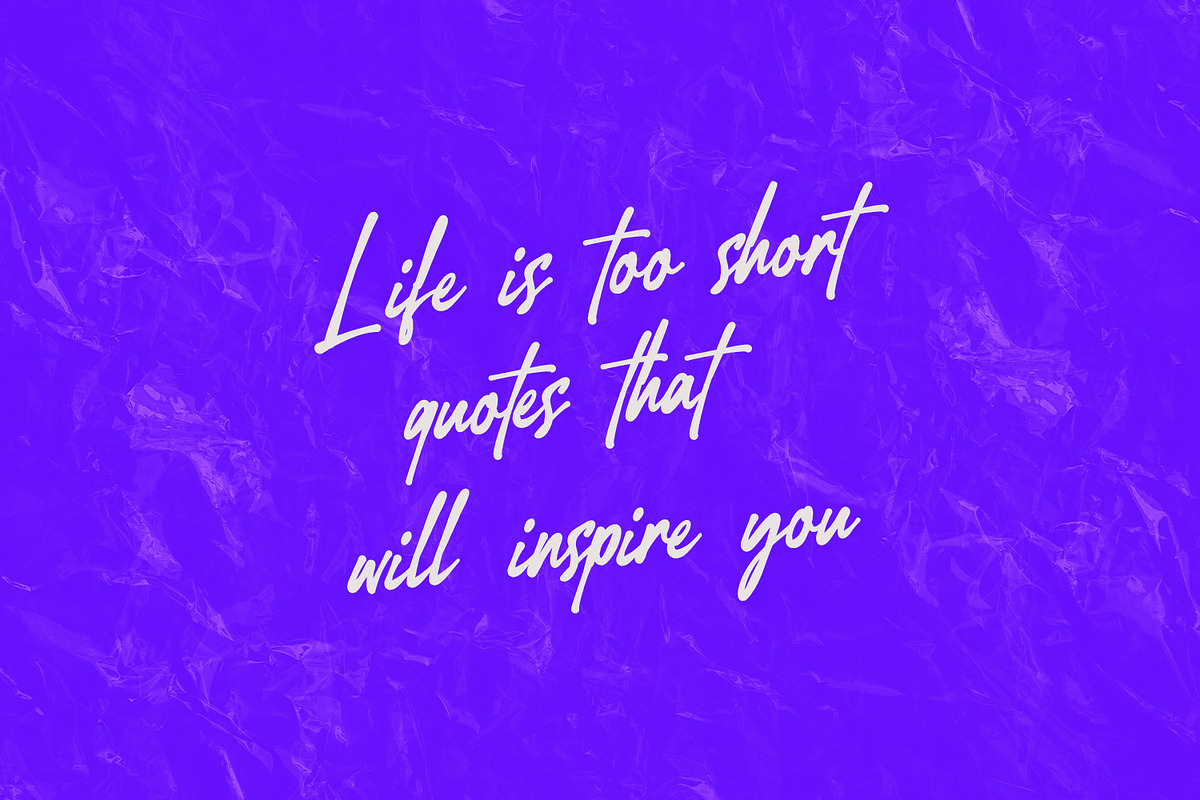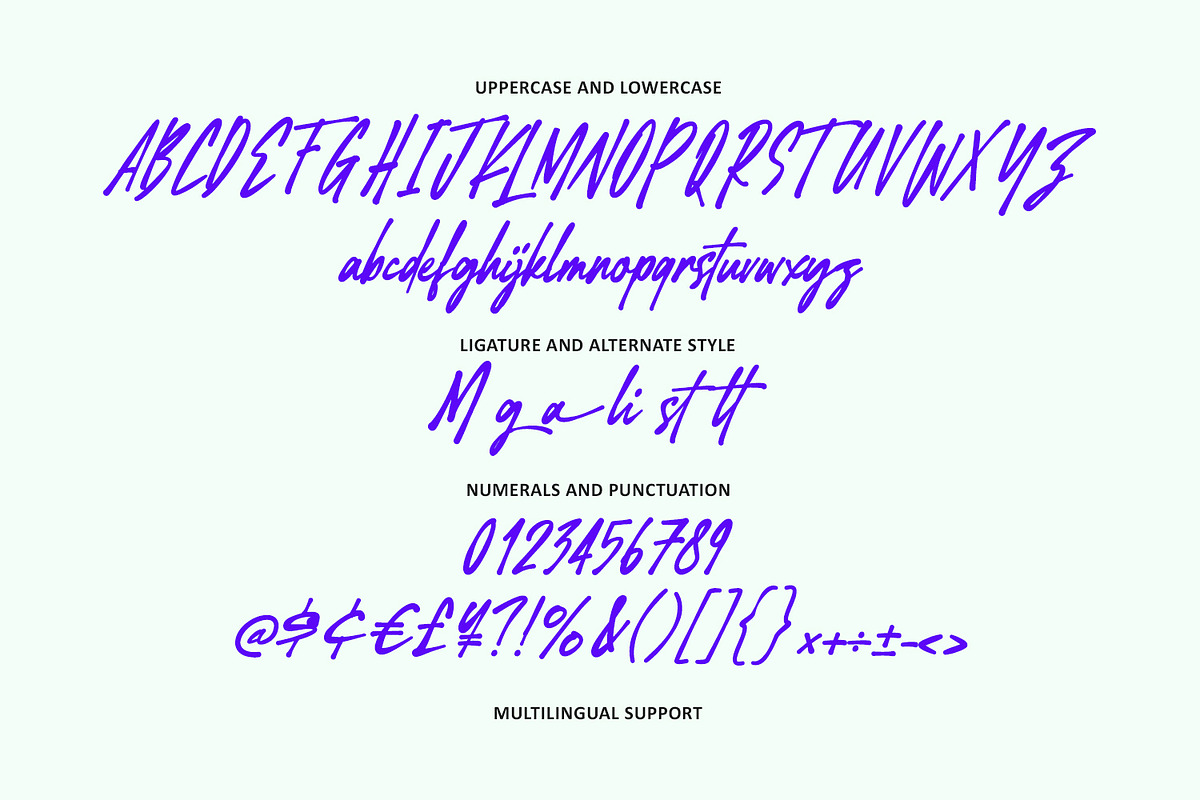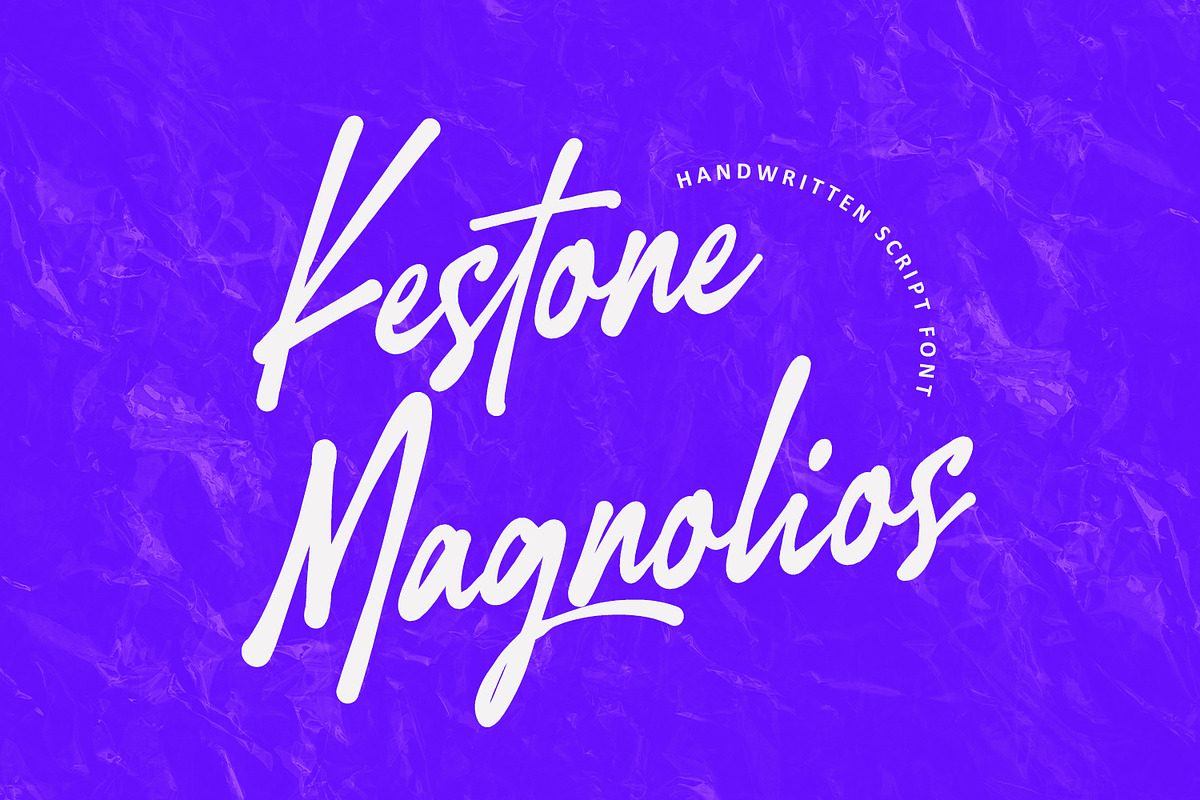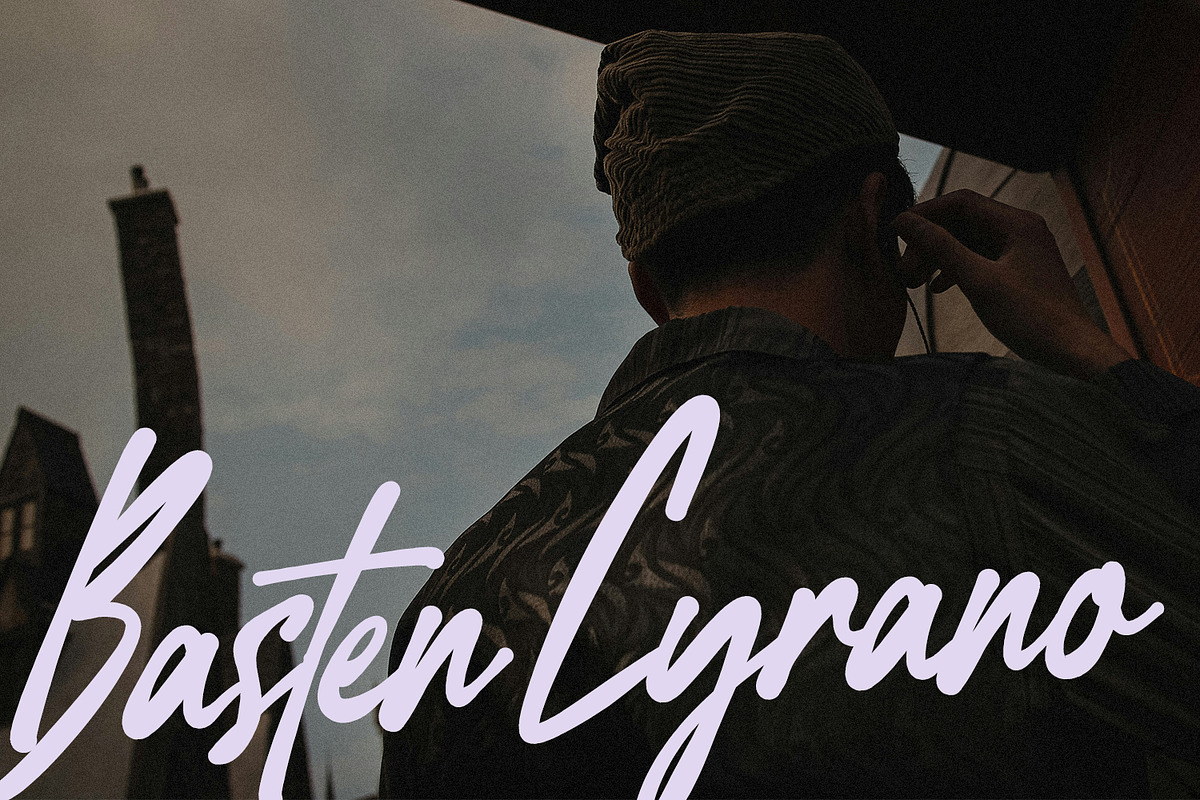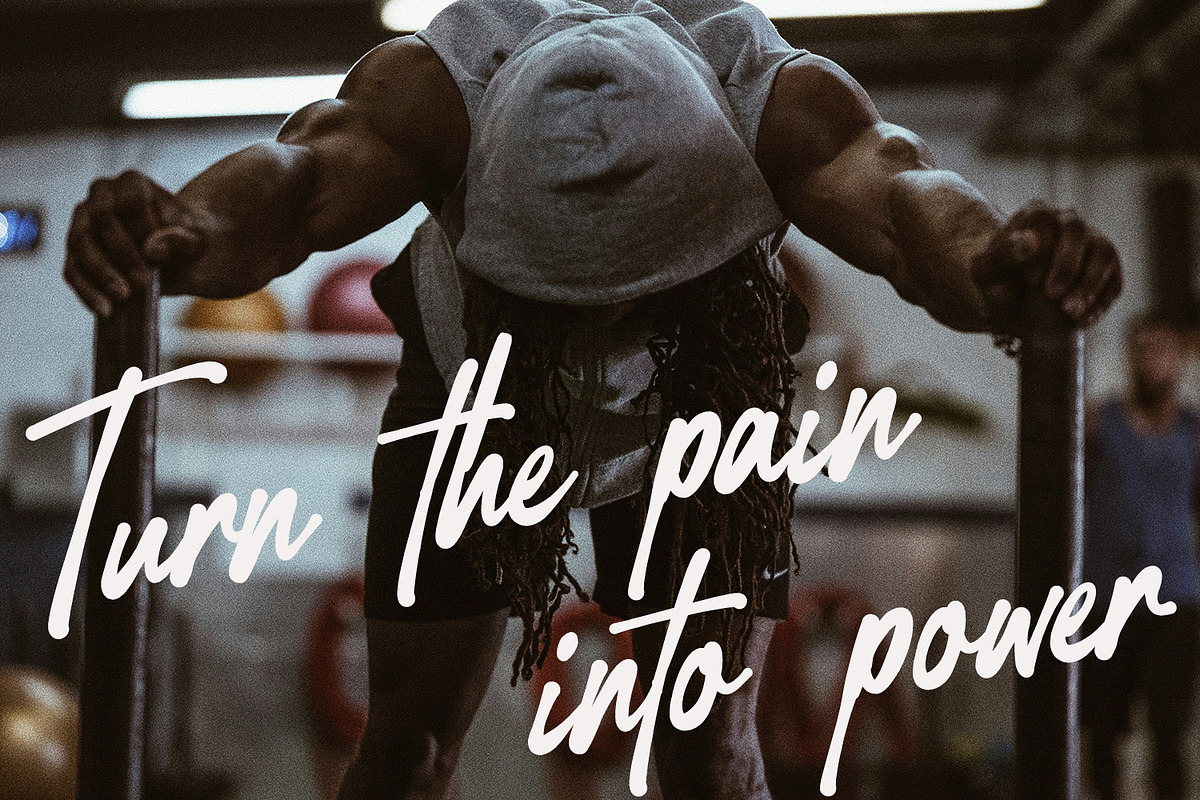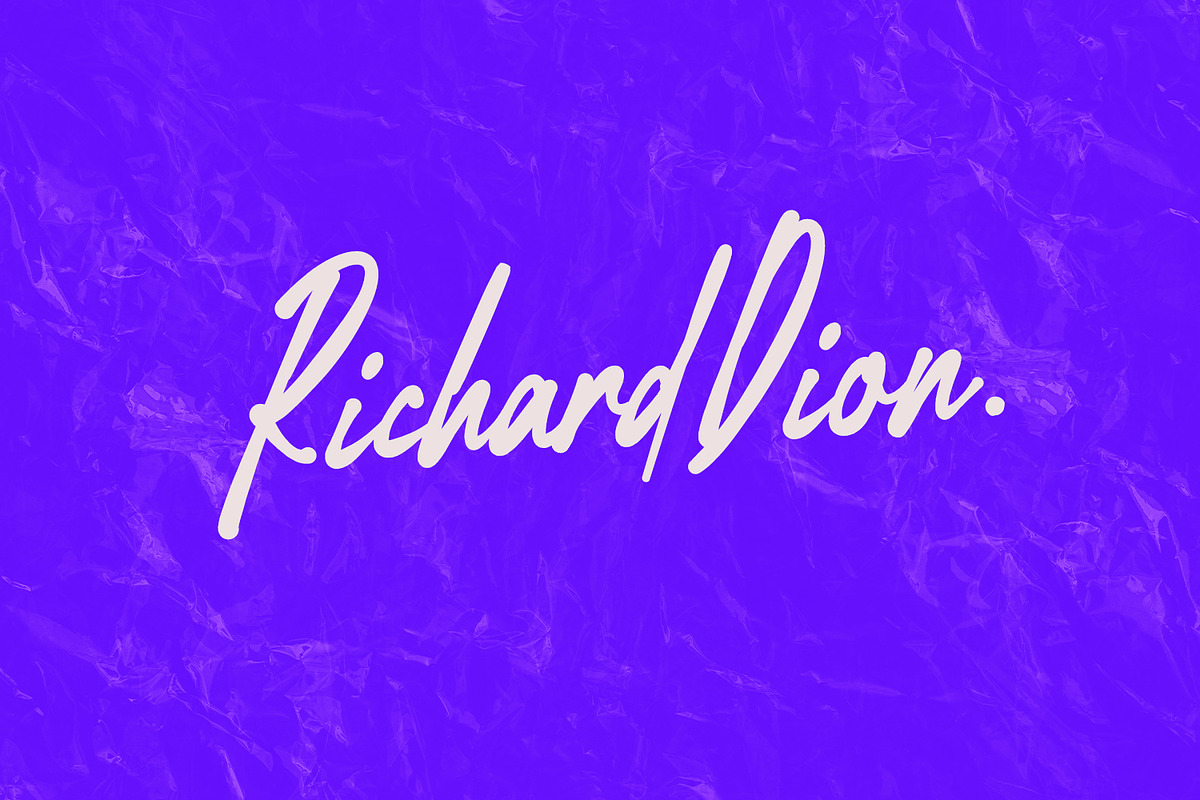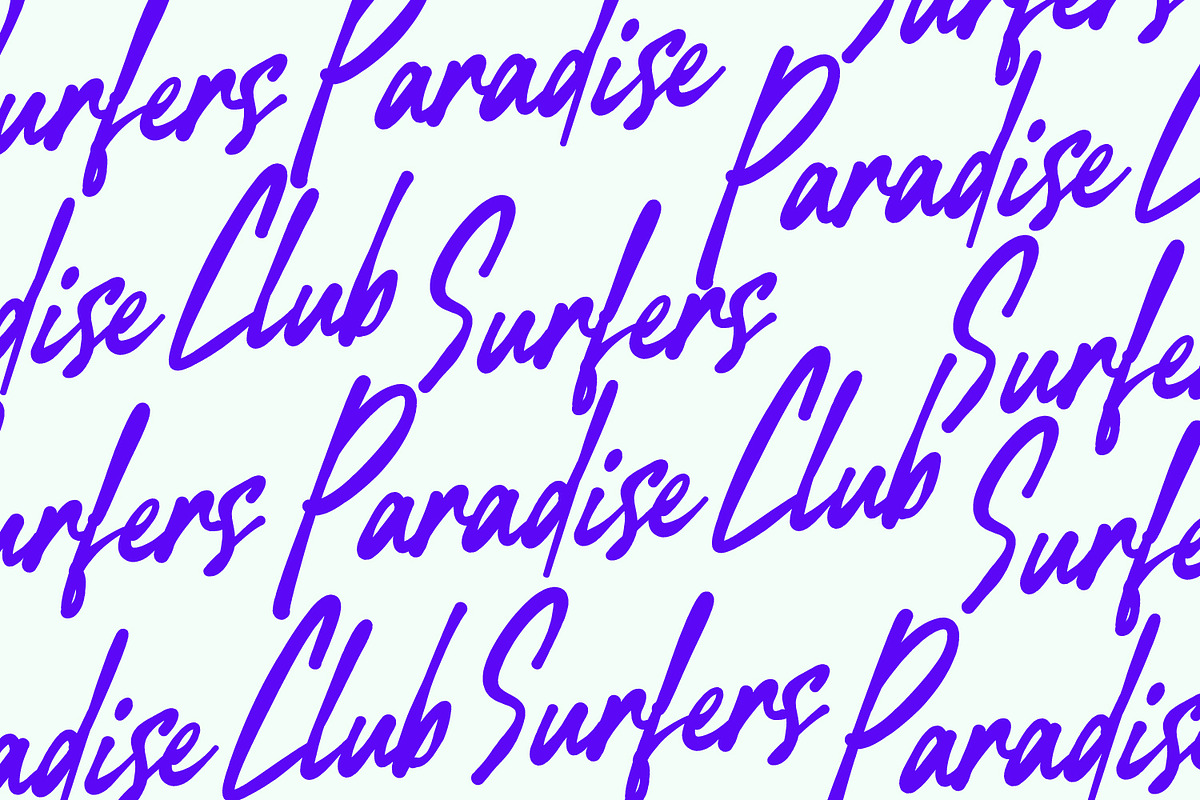
Kestone Magnolios Handwritten Script
Capture attention instantly with Kestone Magnolios, a dynamic handwritten script font that injects a burst of raw energy and genuine into any design. Inspired by authentic, fast-paced handwriting, Kestone Magnolios features strong strokes, natural connections, and a confident style. It’s designed to be effortlessly cool, highly readable, and undeniably impactful.
The bold, sweeping script is perfect for creating headlines, logos, and quotes that demand to be noticed. It maintains the spontaneity and imperfect beauty of genuine handwriting, giving your projects human touch. While showcasing a modern, sporty, and energetic vibe, its elegance also suits high-end branding, invitations, and captivating social media. Includes a complete set of Uppercase and Lowercase letters, Numerals, Punctuation, and essential Ligatures & Alt Styles for maximum creative flexibility.
- Ligatures and Alternate Style